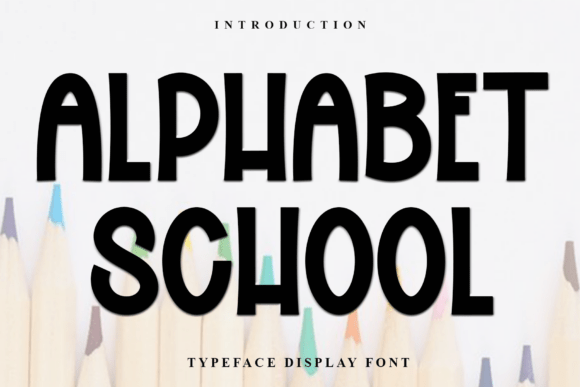
The Sweet & Friendly Alphabet School Font: A Designer’s New Best Friend
I’ll never forget the time I was working on a project for a client who wanted a custom logo with a playful, handwriting feel. I scoured the internet for the perfect font, but nothing seemed quite right. That was until I stumbled upon Alphabet School, a sweet and friendly handwritten font that instantly captured the tone I was looking for. In this article, I’ll share my experience with Alphabet School, its features, and how to make the most of it in your designs.
An Honest Review of Alphabet School
So, what makes Alphabet School so special? Here are a few things I love about this font:
• ✨ Unique and natural style: Alphabet School has a distinct, handwritten feel that’s both elegant and approachable.
• ✅ Highly versatile: This font is incredibly fitting for a wide range of designs, from logos and branding to invitations and crafts.
• 💡 Easy to read: Despite its playful nature, Alphabet School remains clear and legible, even at smaller font sizes.
Of course, no font is perfect, and Alphabet School has a few minor quirks:
• 🤔 Limited formal applications: Due to its casual, handwritten nature, Alphabet School might not be the best fit for formal or corporate designs.
• ⚠️ Some letter variations could be improved: A few letter combinations, such as “fg” or “st”, might appear a bit awkward or require manual kerning.
The Story Behind Alphabet School
According to its creator, Alphabet School was designed to bring a touch of warmth and personality to digital designs. The font’s unique style was inspired by classic handwriting and aims to evoke a sense of friendliness and approachability.
What type of projects is Alphabet School best suited for? Alphabet School is versatile and can be used for a wide range of projects, including logos, branding, invitations, crafts, and more.
Is Alphabet School suitable for body text? While Alphabet School is primarily designed for display text, it can be used for short paragraphs of body text. However, its readability may decrease at smaller font sizes.
Does Alphabet School support OpenType features? Yes, Alphabet School supports OpenType features, including ligatures, stylistic alternates, and glyphs.